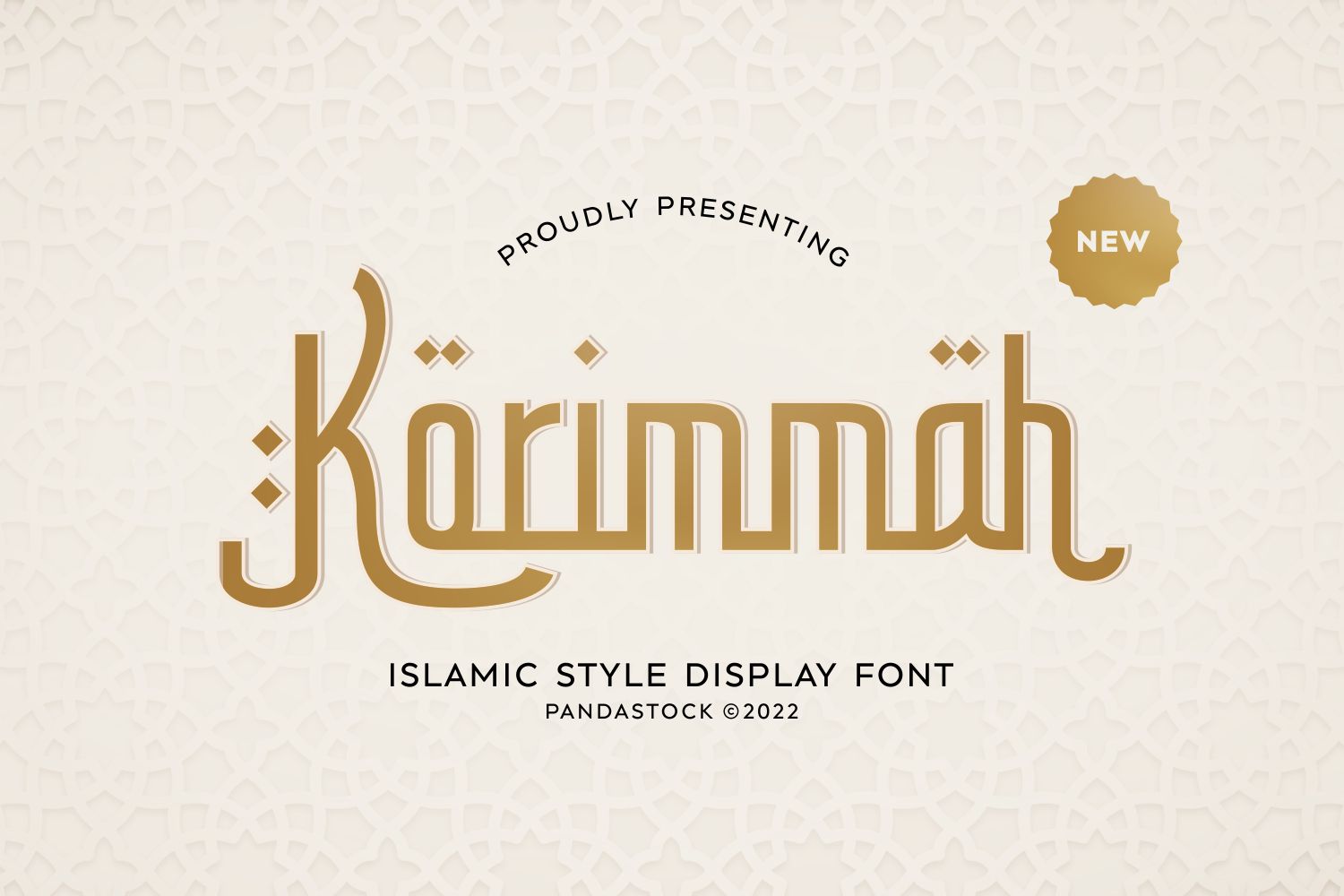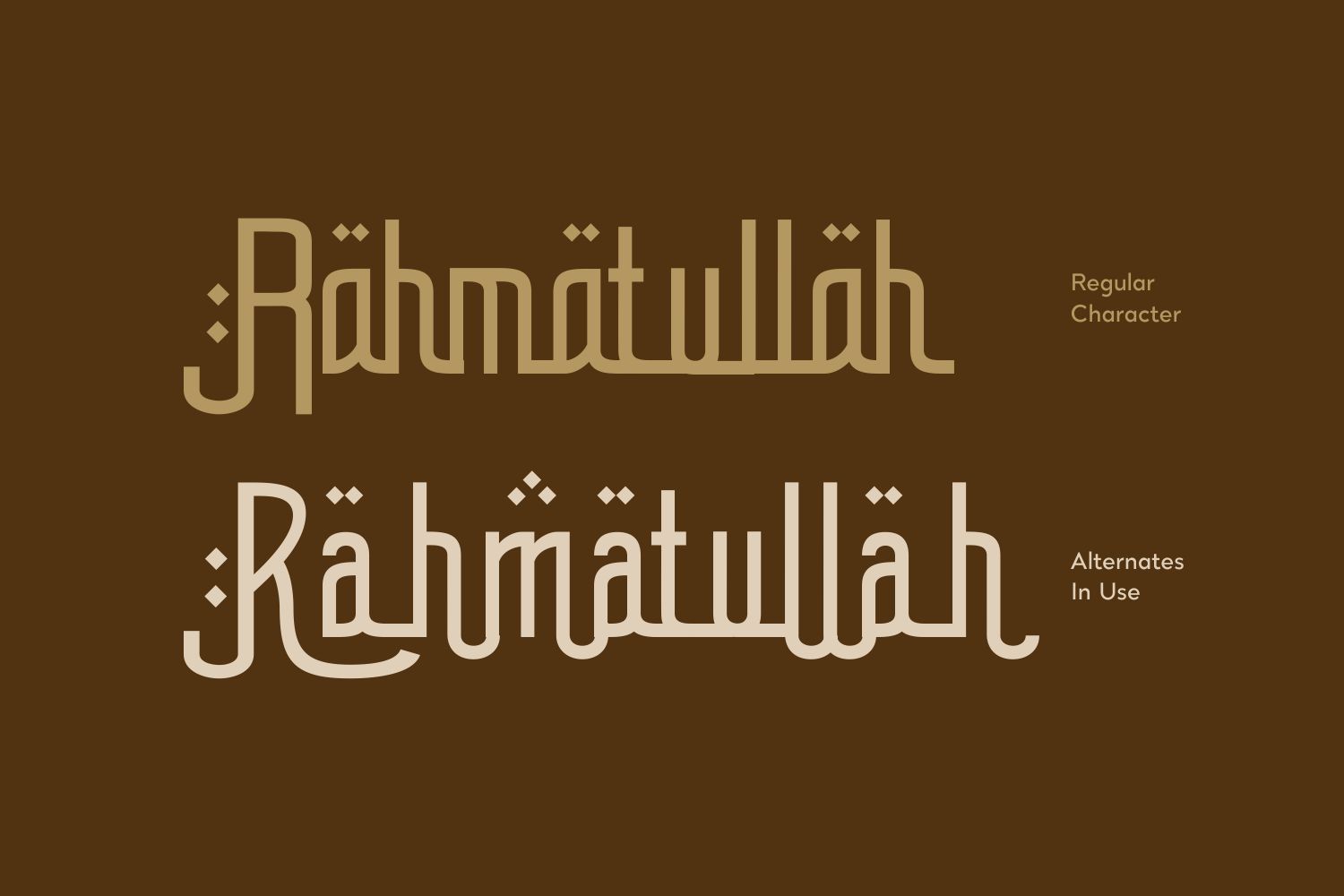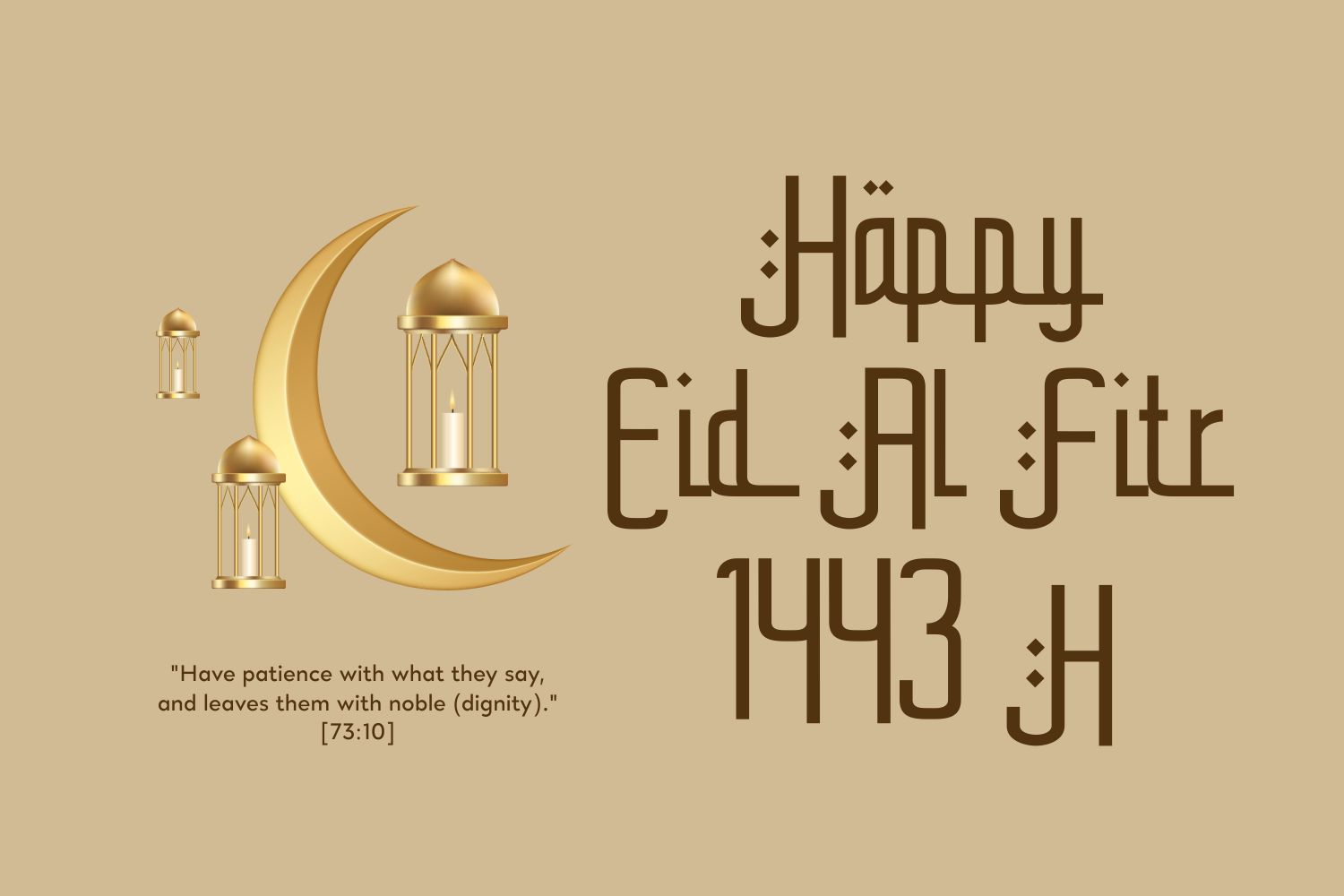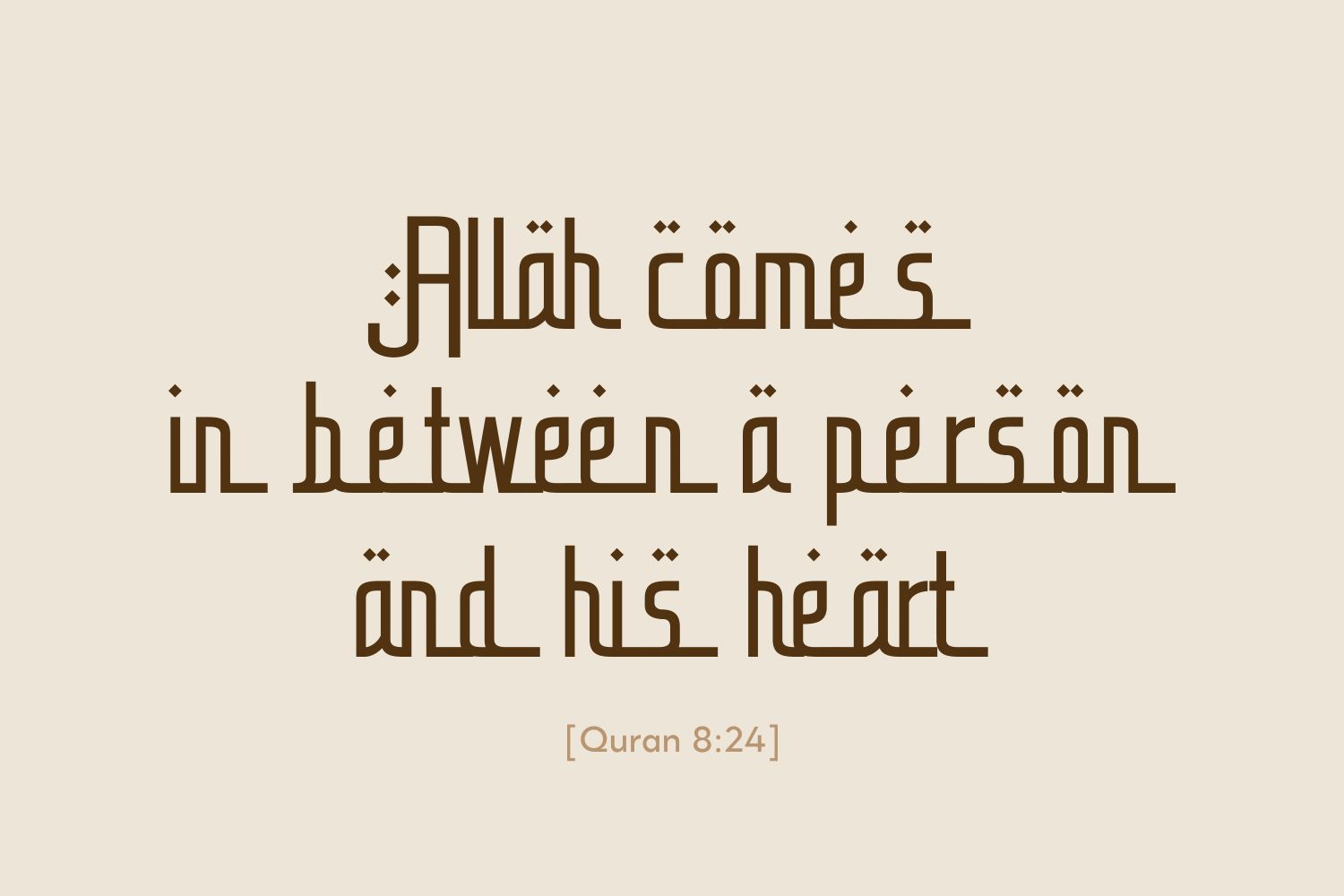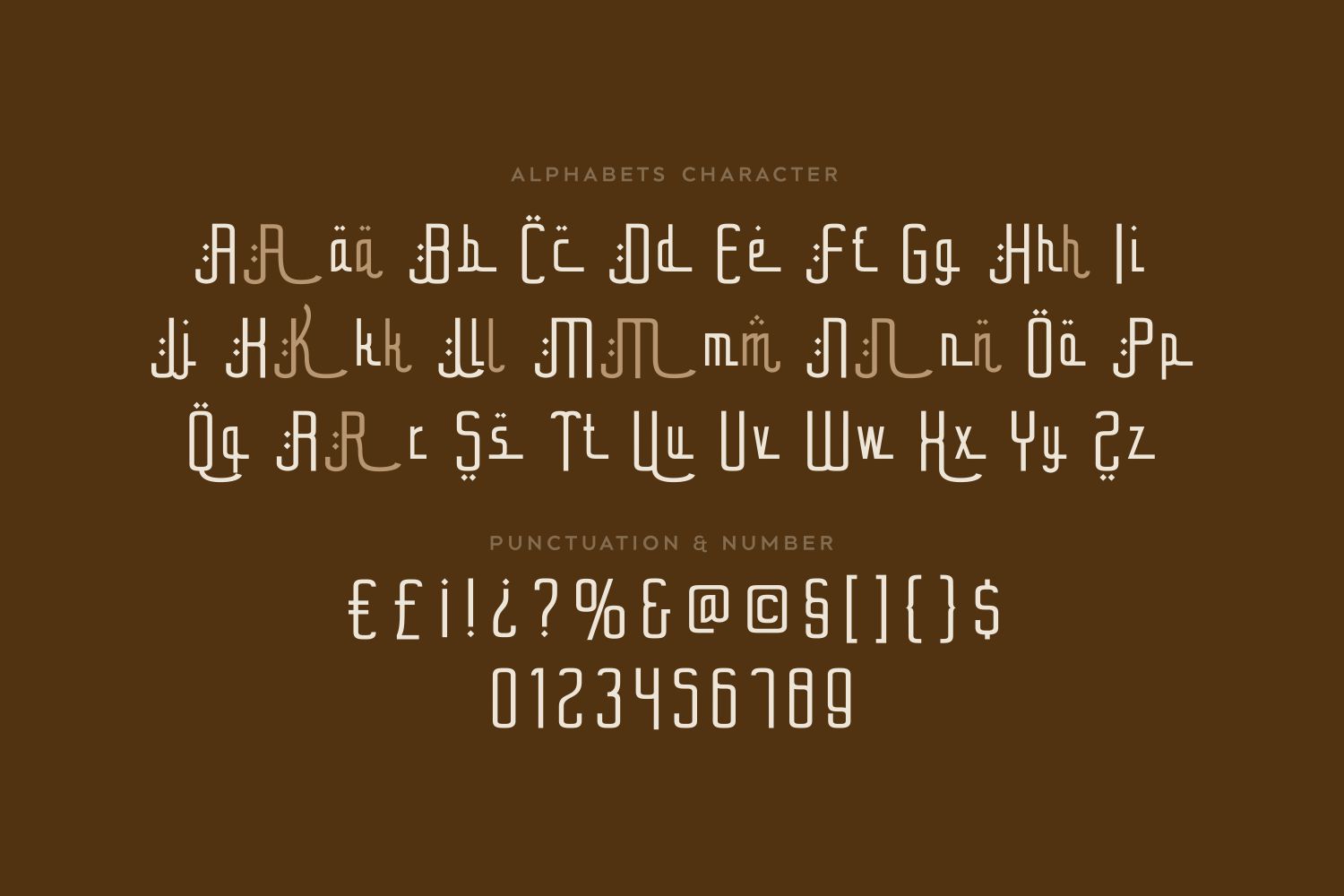
Korimmah is an Islamic Style Display Font that blends elegant calligraphic inspiration with a modern, minimalist touch. Featuring tall letterforms, refined curves, and distinctive diacritic details, Karimah delivers a unique sense of cultural authenticity while maintaining readability. Its graceful yet structured style makes it perfect for both traditional and contemporary design projects.
With alternate characters and versatile features, Korimmah is an excellent choice for branding, posters, book covers, invitations, and religious-themed designs. Whether for Eid greetings, Islamic events, or decorative editorial layouts, Karimah adds a refined aesthetic that embodies both heritage and sophistication.
Korimmah